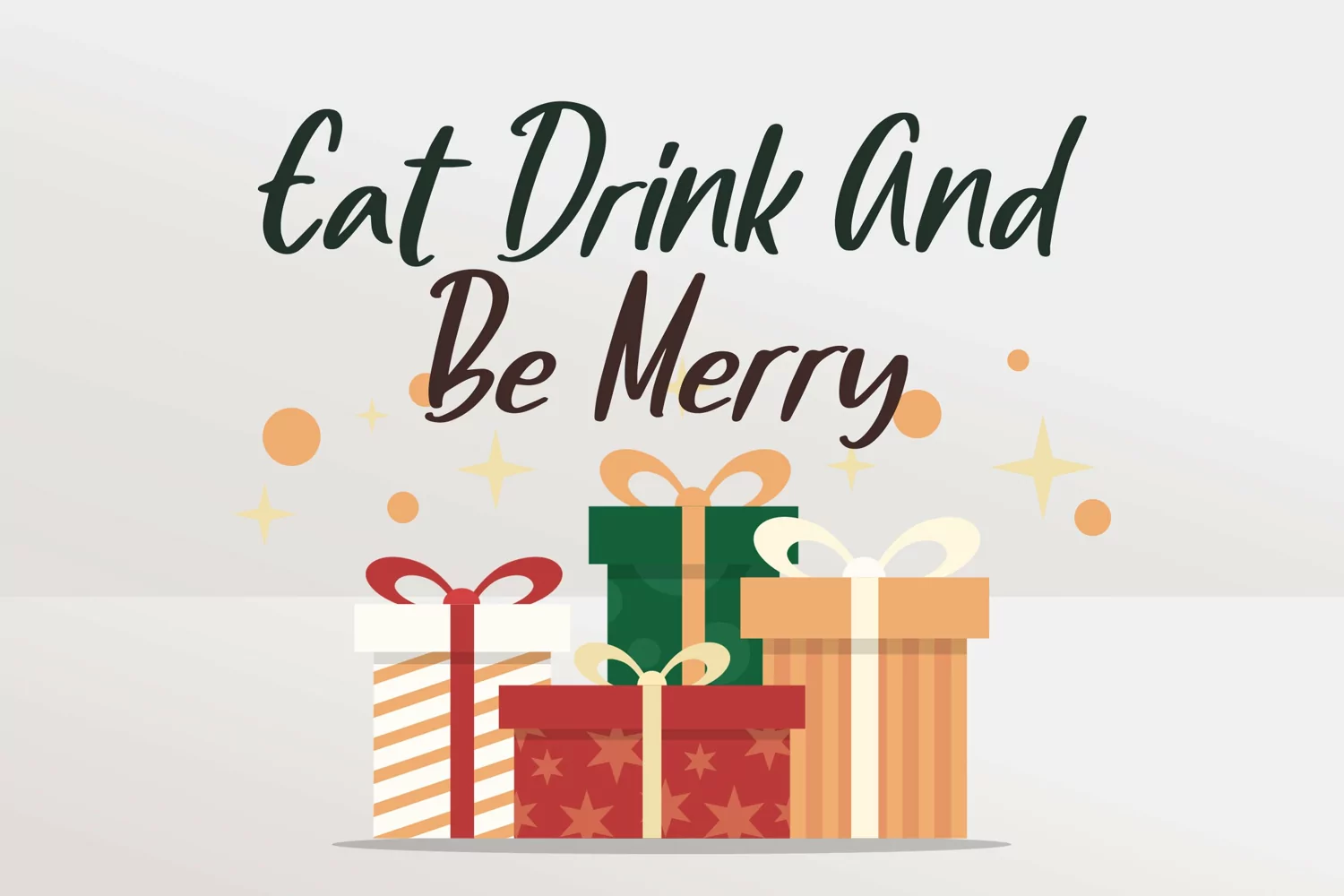
Nature Blessing - Beauty Holiday Font
Nature Blessing - Beauty Holiday Font that contain lowercase, uppercase, symbol, and also support multi language. There’s a lot ligatures in this font. This Font also comes with ligatures, alternates and many more. this font suitable for fashion, branding, catalog and other design what you want.